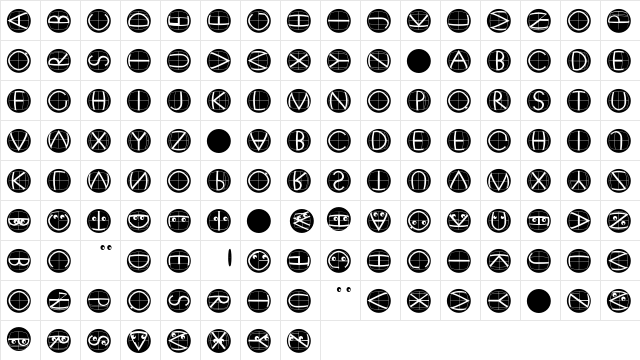
XperimentypoFSBlack Regular
Design Context for XperimentypoFSBlack Typeface
XperimentypoFSBlack is a composed and adaptable typeface that performs quietly and consistently across a wide range of design contexts.